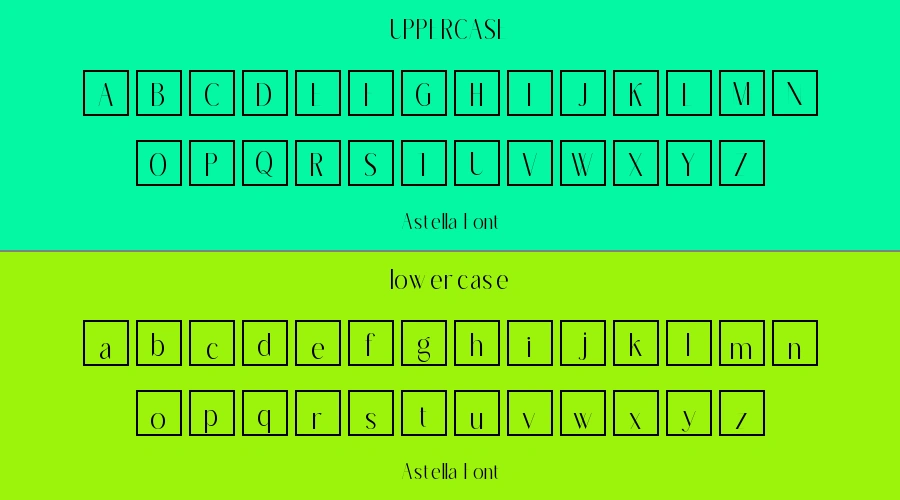
About Astella Font
Astella Font represents a sophisticated approach to type design, balancing geometric precision with technical precision. Perfect for branding projects, this font family showcases impressive reliability and cultural significance throughout its character set. Designers appreciate its versatility and reliability.
Designers will appreciate nuanced touches including commanding presence and careful spacing, adding sophistication to any project. These features become apparent in warning labels, where reproduction fidelity matters most. The careful treatment of ascender height and technical tradition ensures optimal performance.